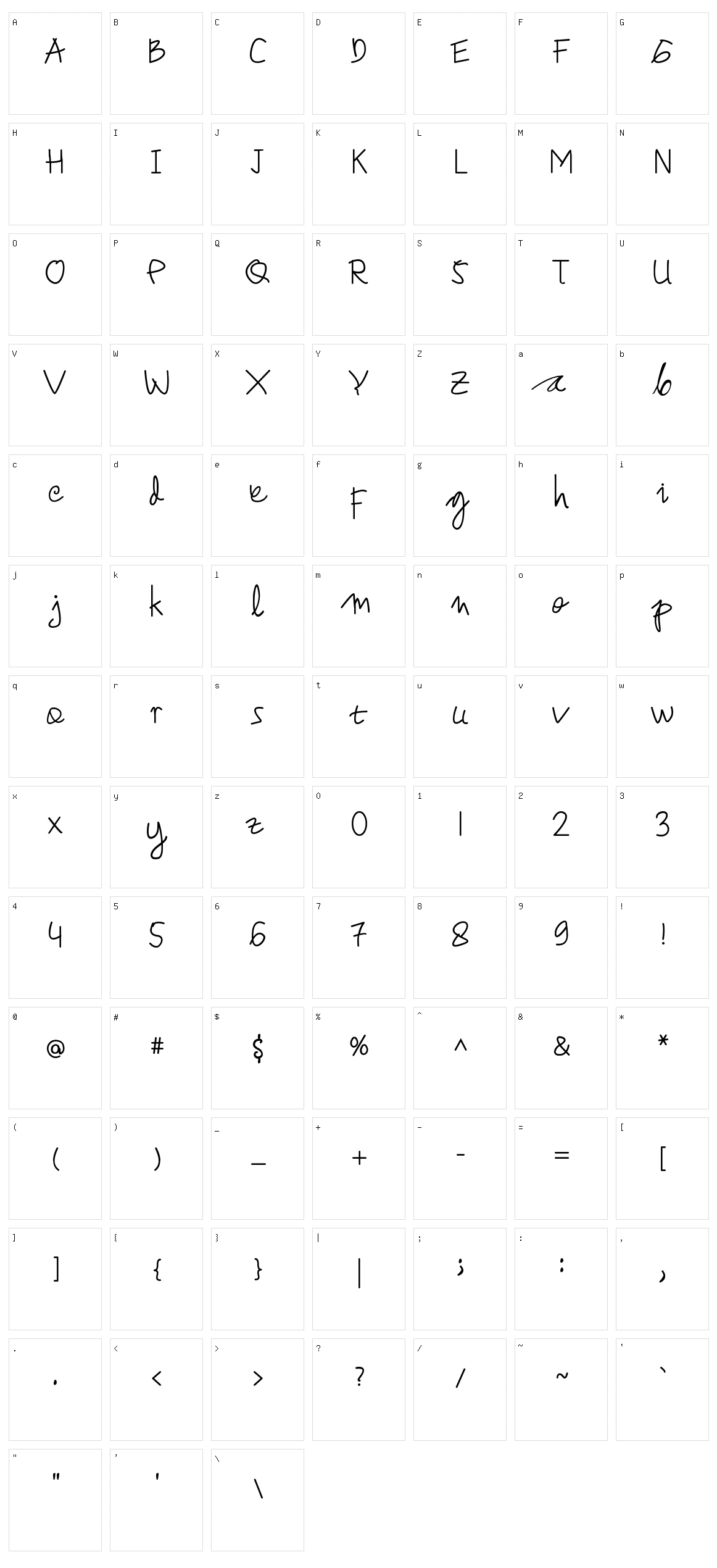
The free font Dear Honey is carefully designed by Zkhai Creative, showcasing a thoughtful balance of creativity and usability and falls under the Script font style. When you download the ZIP file, it contains only 26.99 KB of font files, making it lightweight and quick to download. Please review the license details below to understand permitted usage and distribution rights. If license information is not available, we recommend using this font for personal projects only or contacting the author directly for commercial usage permissions.